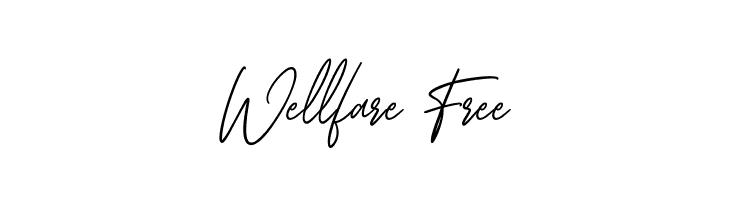
A dynamic and elegant script font with fluid, cursive strokes and expressive loops.
A whimsical, cursive script font with elegant, flowing strokes.
A fluid, cursive script font with elegant, sweeping strokes.
A charming handwritten script with smooth, flowing lines and connected letters.
A dynamic, expressive handwritten font with fluid, organic strokes.